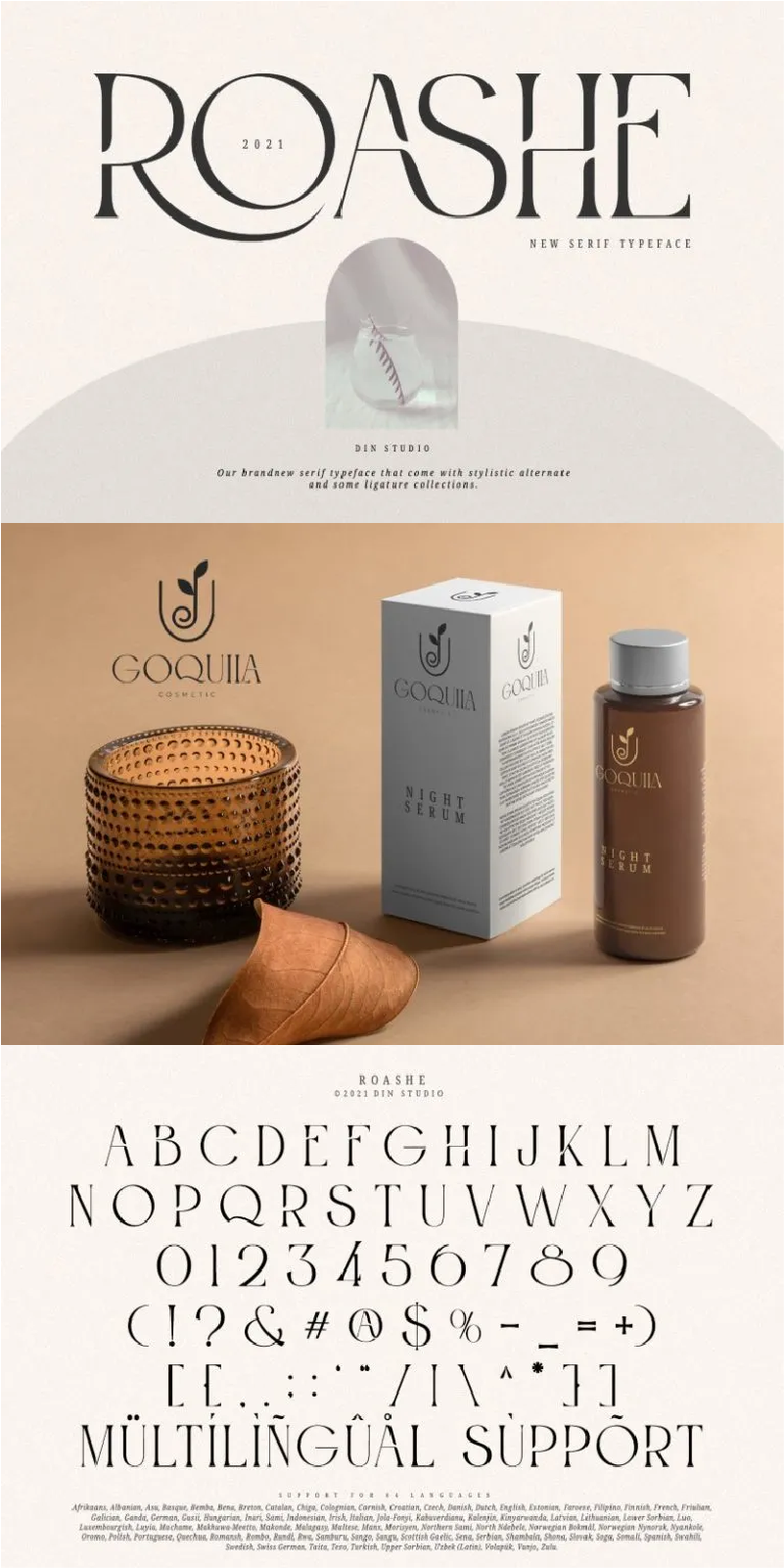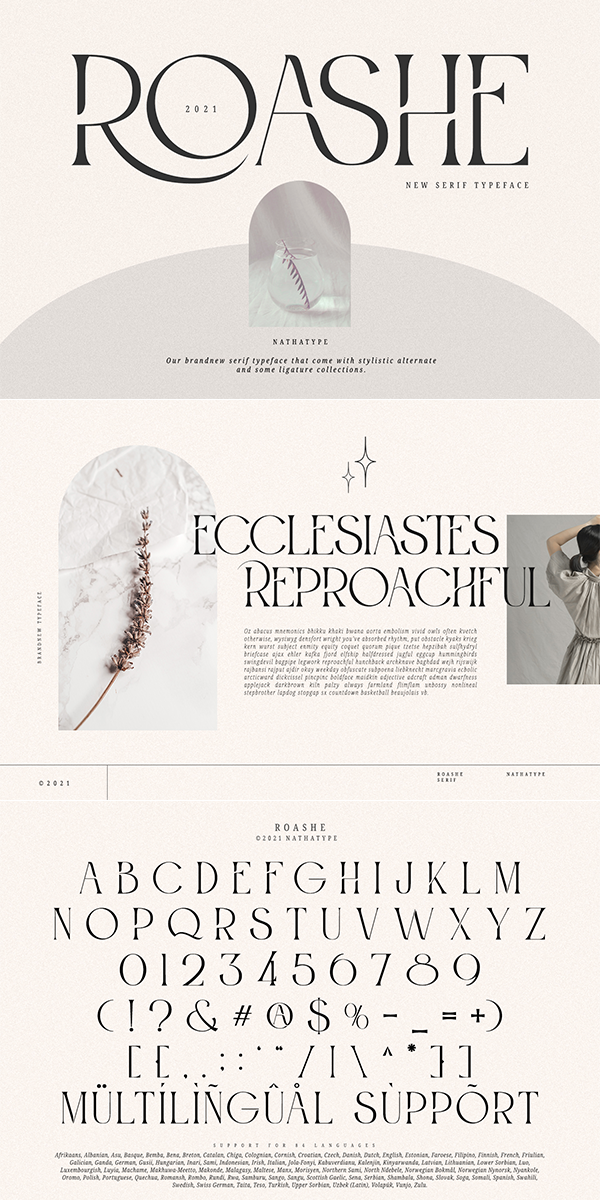
Roashe Font
About Roashe
Roashe Serif Font is created by Din Studio font designers. The font includes Multilingual Supports to make your brandings reach a global audience. Inspire your audience, clients, or guests with this beautiful, statement font.
Afrikaans, Albanian, Asu, Basque, Bemba, Bena, Breton, Catalan, Chiga, Colognian, Cornish, Croatian, Czech, Danish, Dutch, English, Estonian, Faroese, Filipino, Finnish, French, Friulian, Galician, Ganda, German, Gusii, Hungarian, Inari Sami, Indonesian, Irish, Italian, Jola-Fonyi, Kabuverdianu, Kalenjin, Kinyarwanda, Latvian, Lithuanian, Lower Sorbian, Luo, Luxembourgish, Luyia, Machame, Makhuwa-Meetto, Makonde, Malagasy, Maltese, Manx, Morisyen, Northern Sami, North Ndebele, Norwegian Bokmål, Norwegian Nynorsk, Nyankole, Oromo, Polish, Portuguese, Quechua, Romansh, Rombo, Rundi, Rwa, Samburu, Sango, Sangu, Scottish Gaelic, Sena, Serbian,, Shambala, Shona, Slovak, Soga, Somali, Spanish, Swahili, Swedish, Swiss German, Taita, Teso, Turkish, Upper Sorbian, Uzbek (Latin), Volapük, Vunjo, Zulu